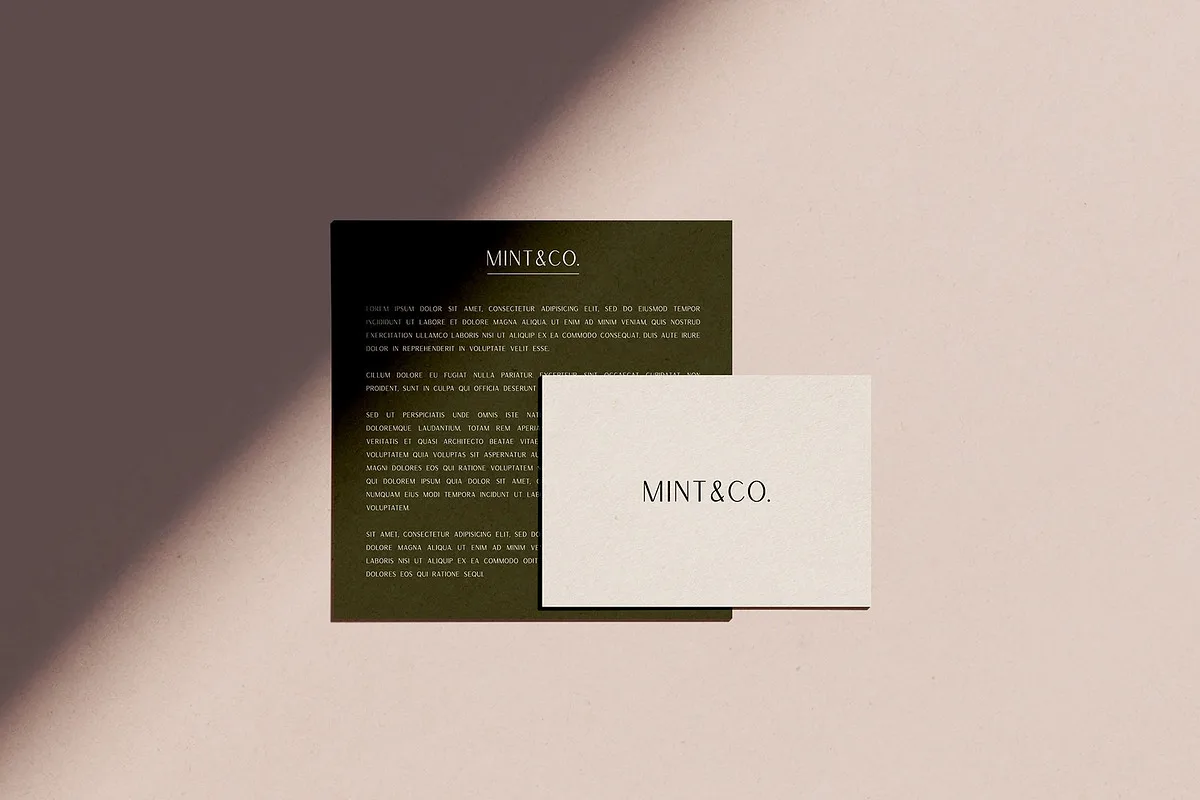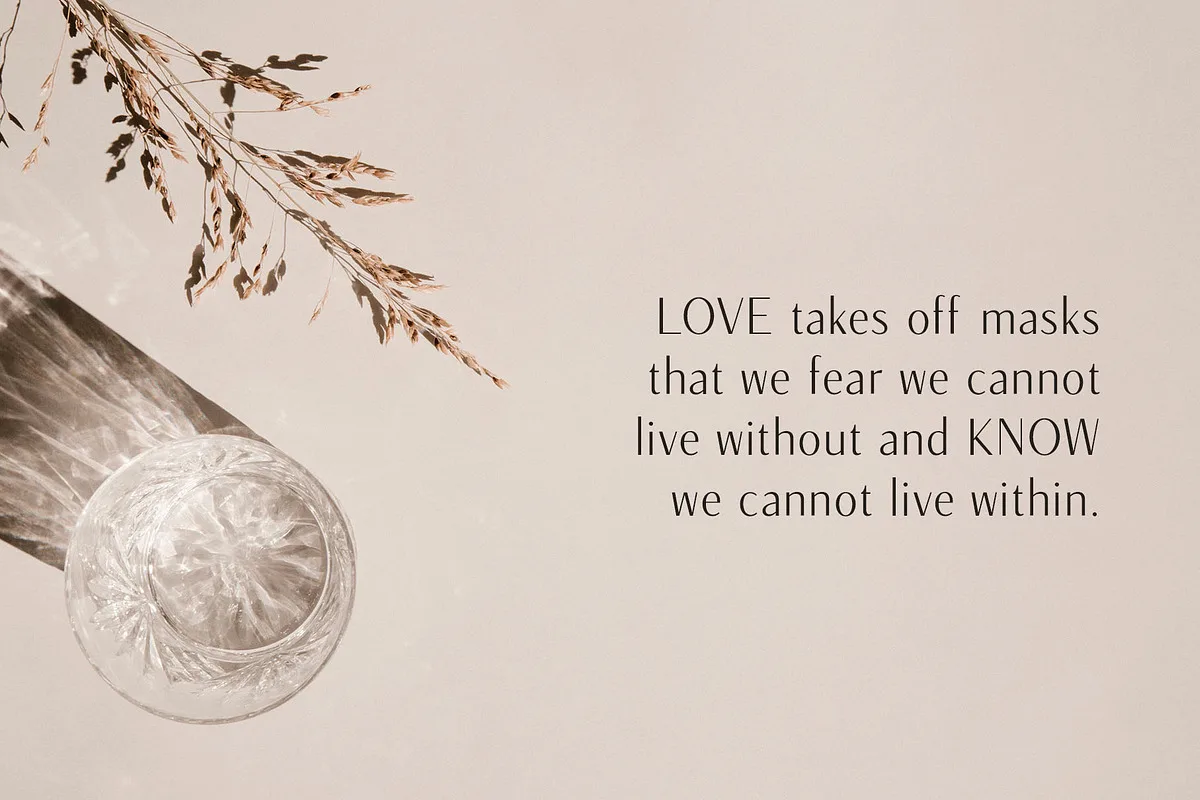
Versailles is a timeless sans serif with the classiness of a serif font. With smooth and clean lines, and just a touch of contrast, Versailles works beautifully for logos, branding, and web headings.